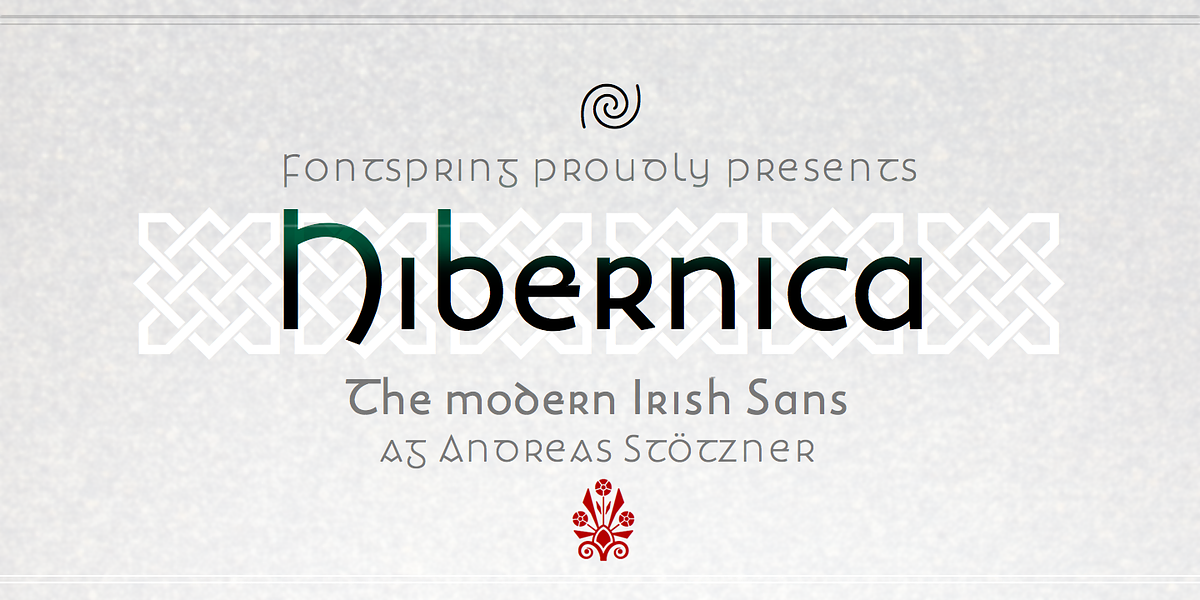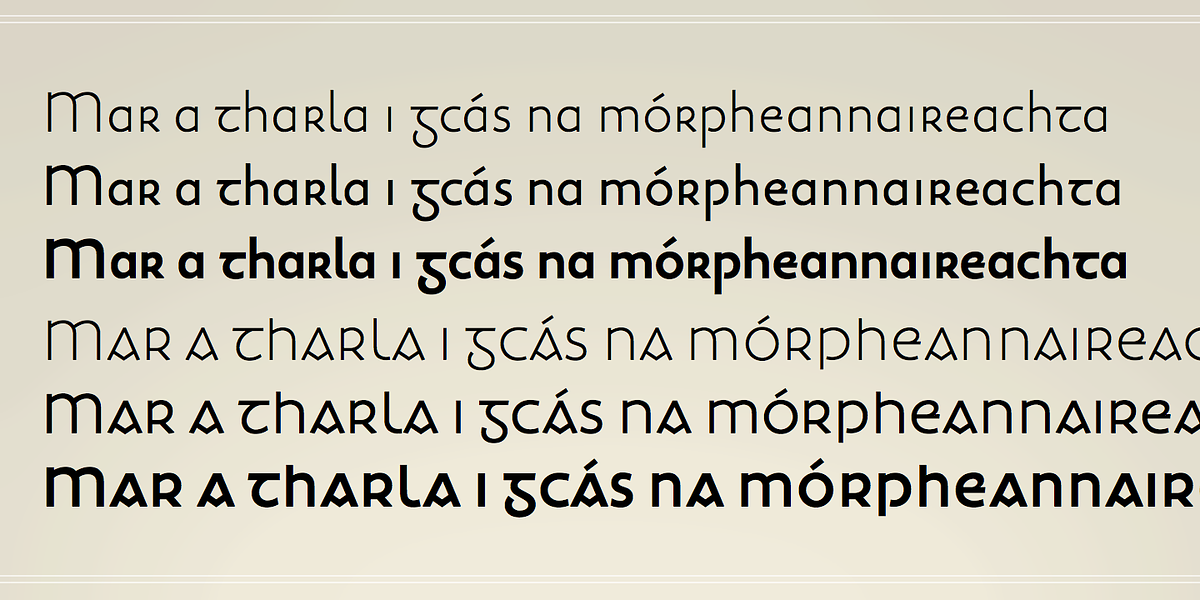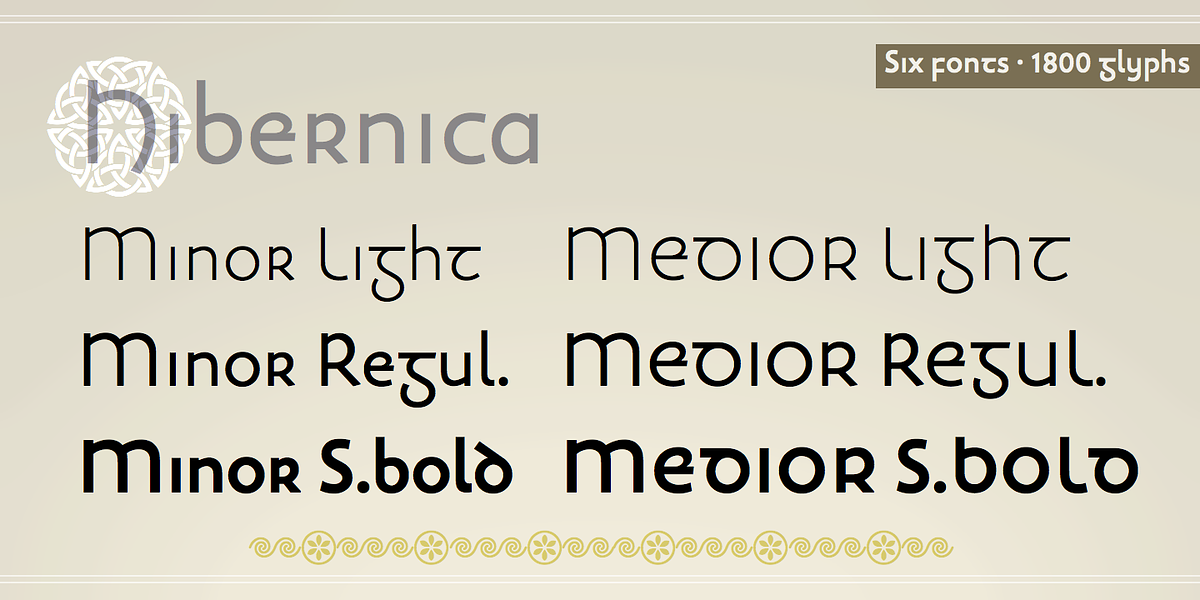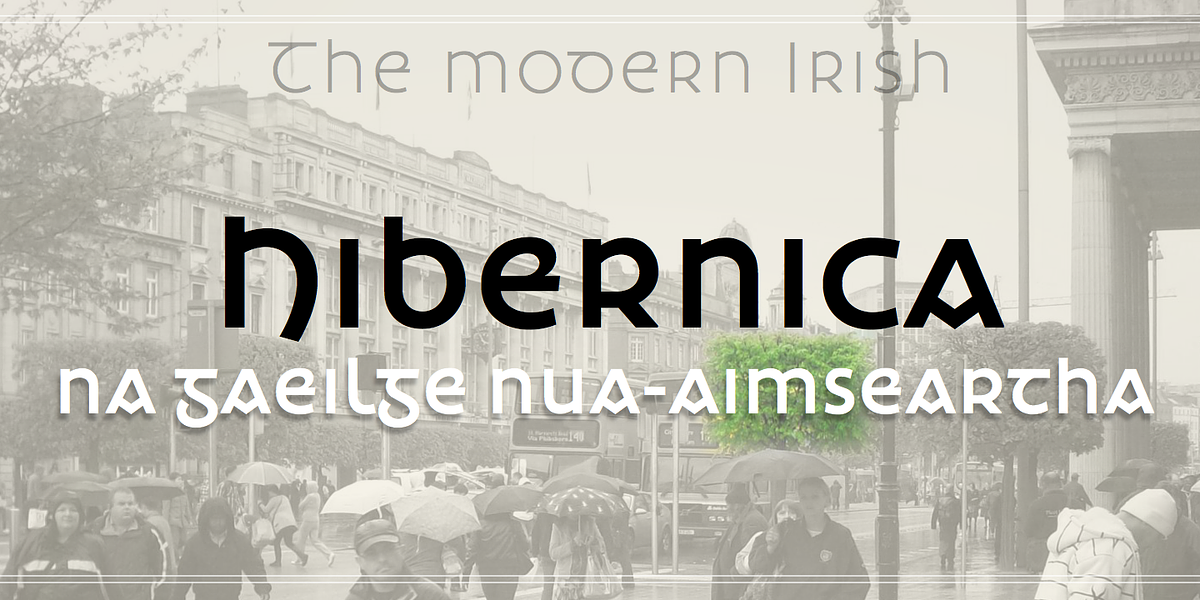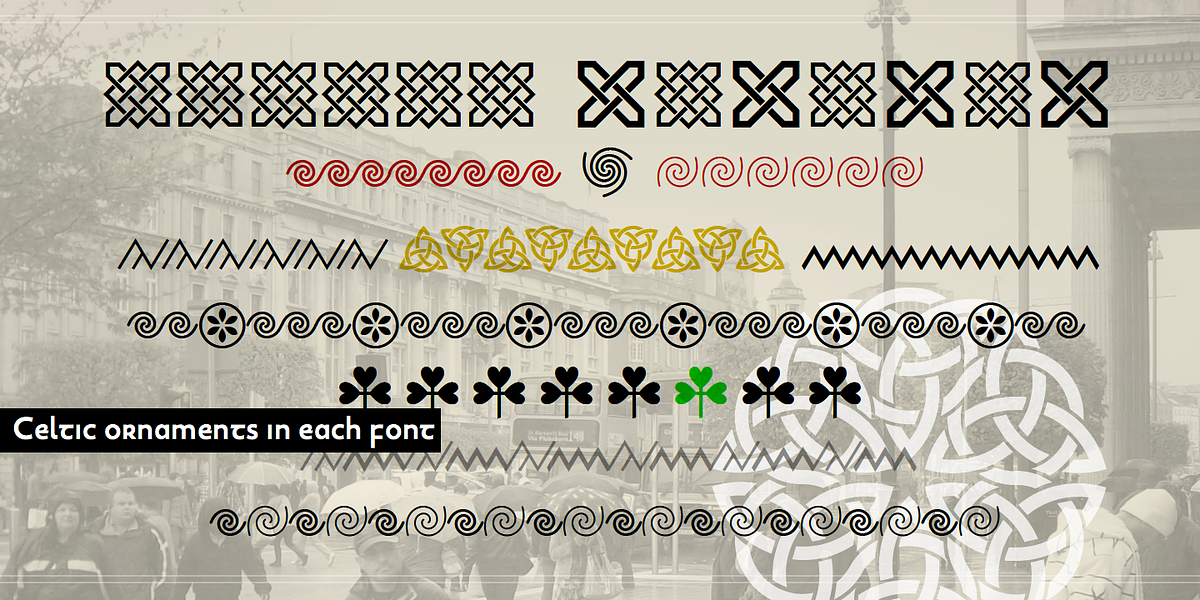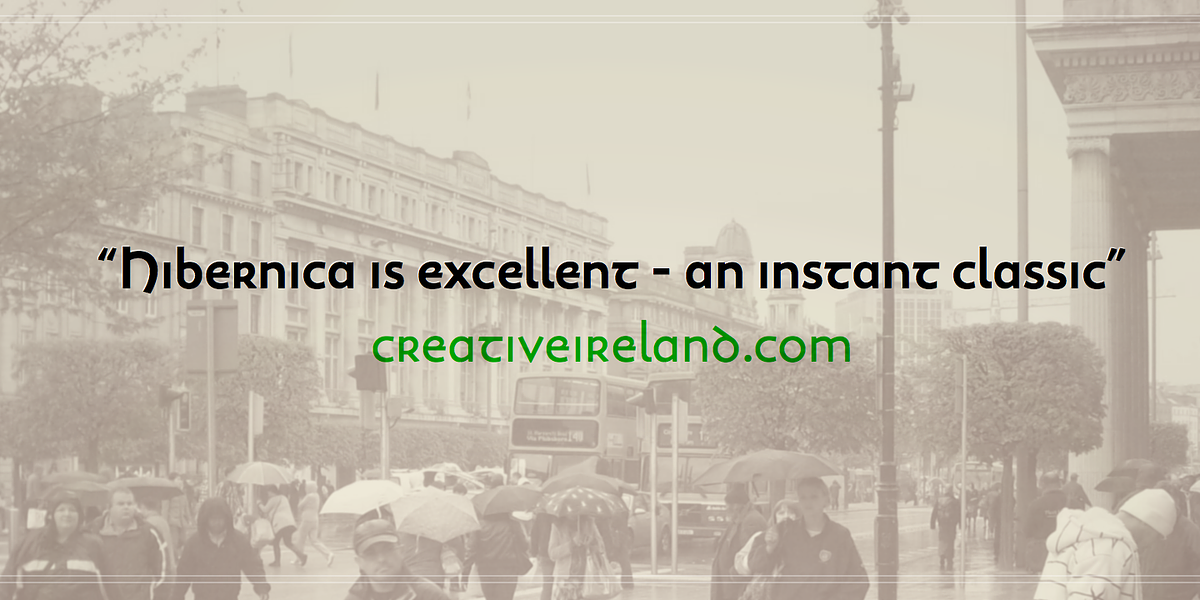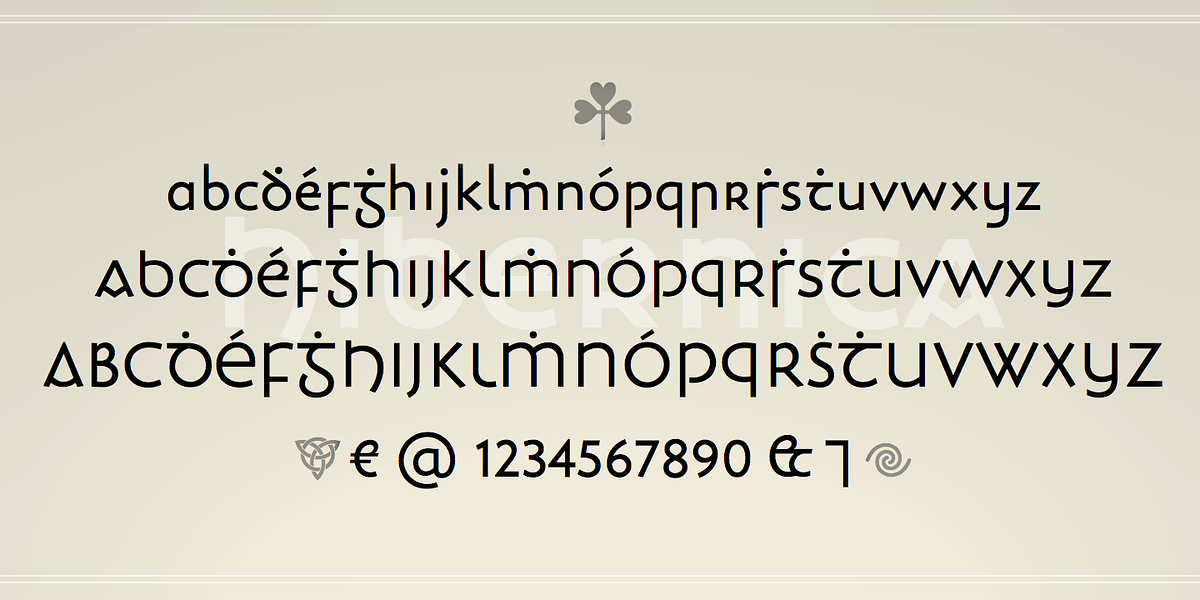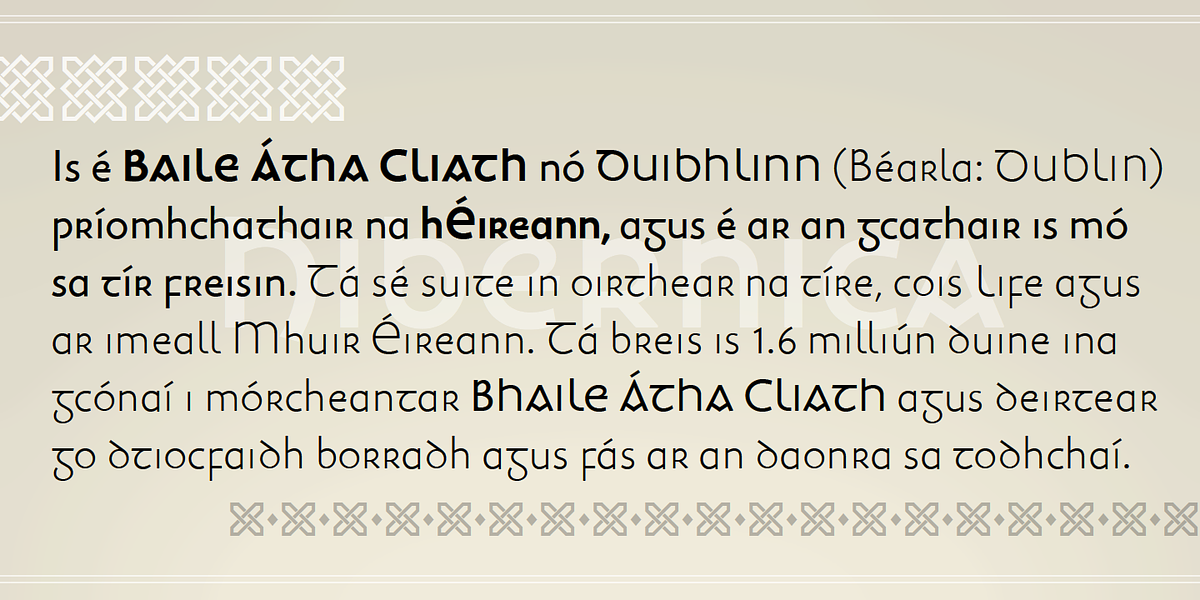
Hibernica
Hibernica is a modern sans serif font inspired by Lapidaria. It features a calligraphic style and includes a full set of dotted letters for Irish text as well as Celtic ornaments. Suitable for a variety of applications, from menus and signage to apparel design.